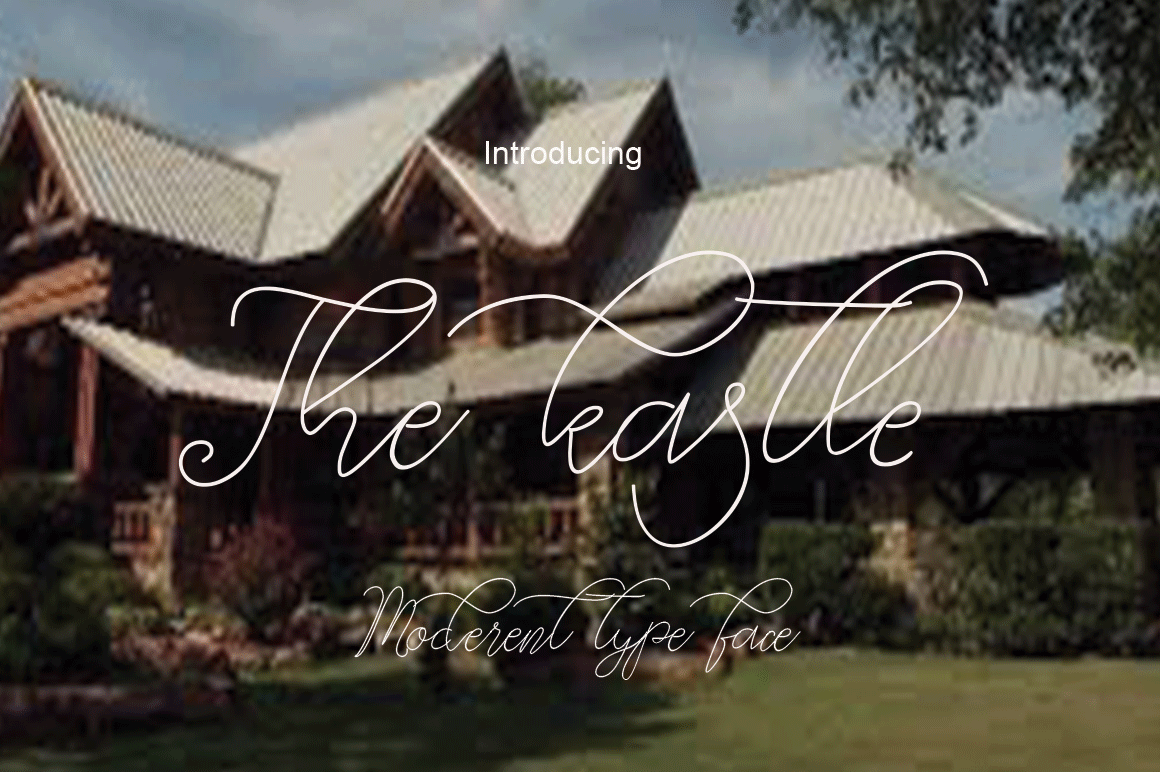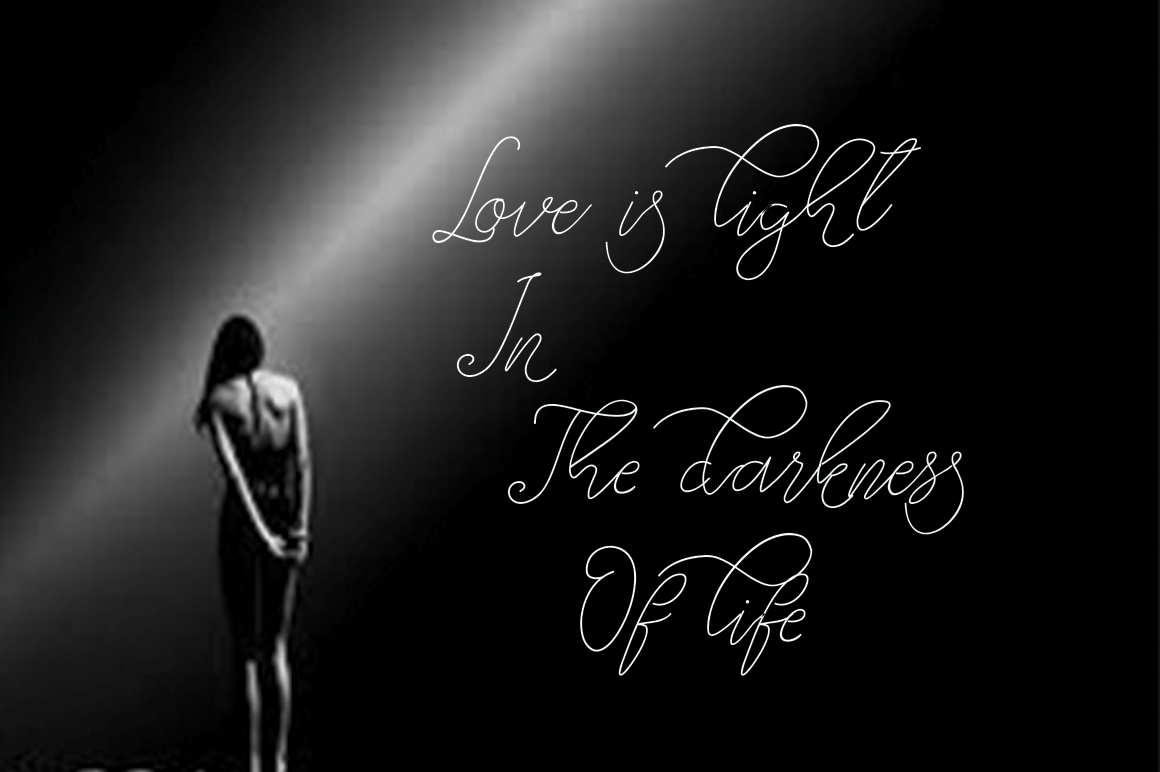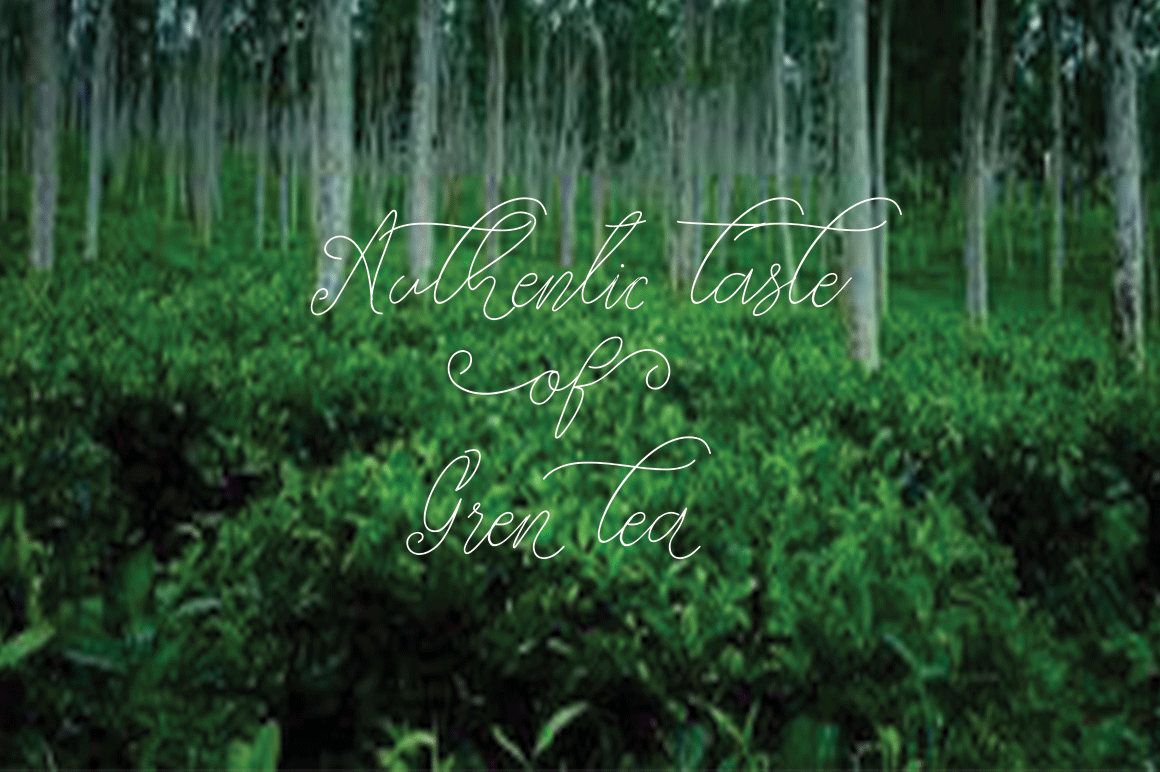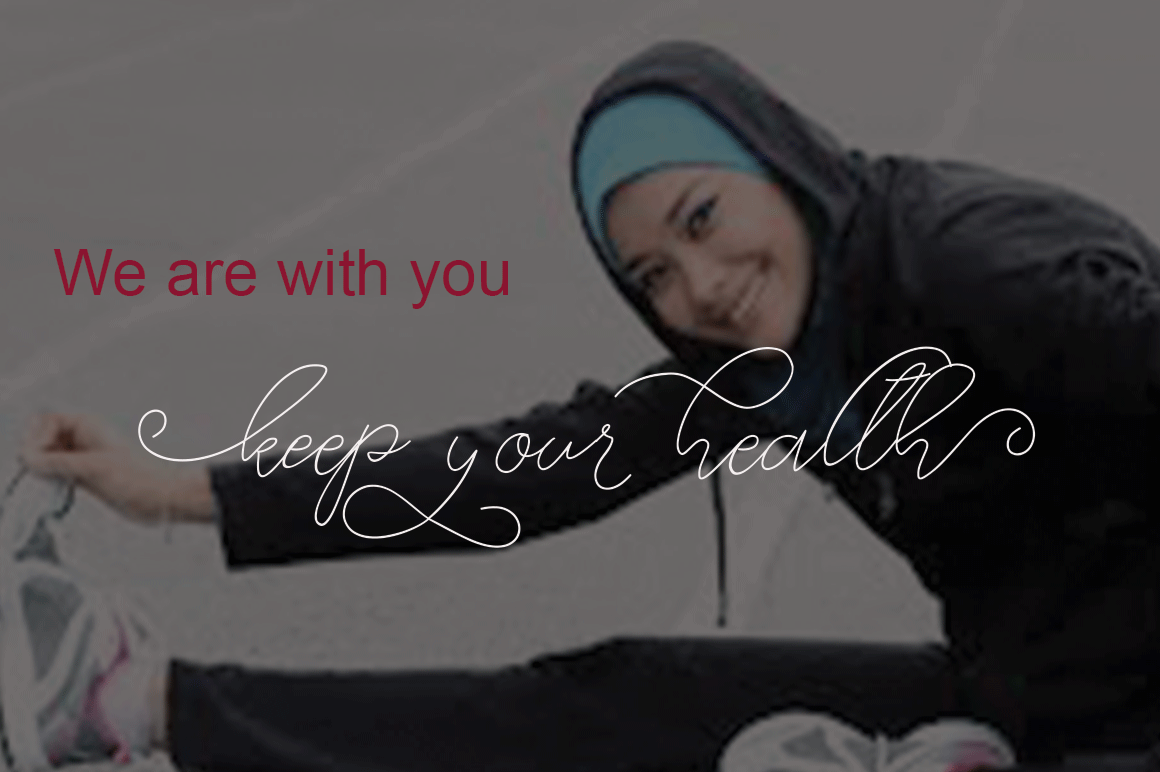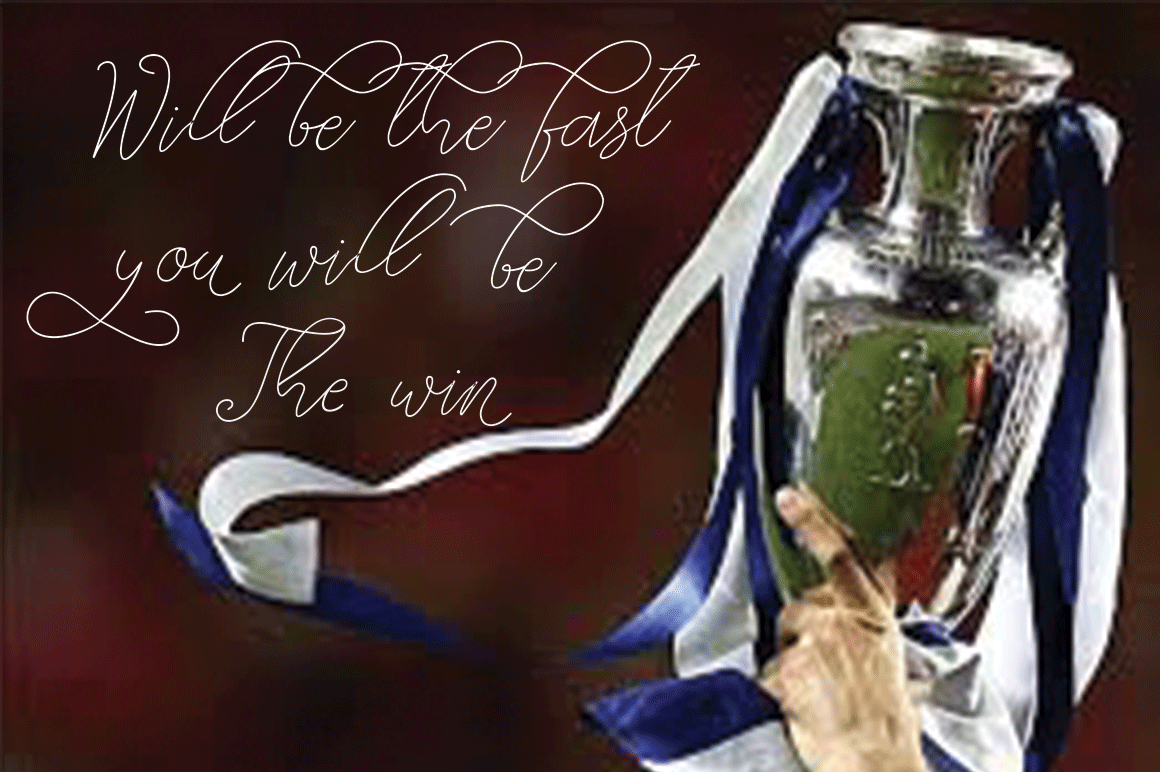
The Kastle Font
The Kaste is a super thin monoline font with a very fluid handwritten style. This delicate font works great for projects that need a gentle touch.